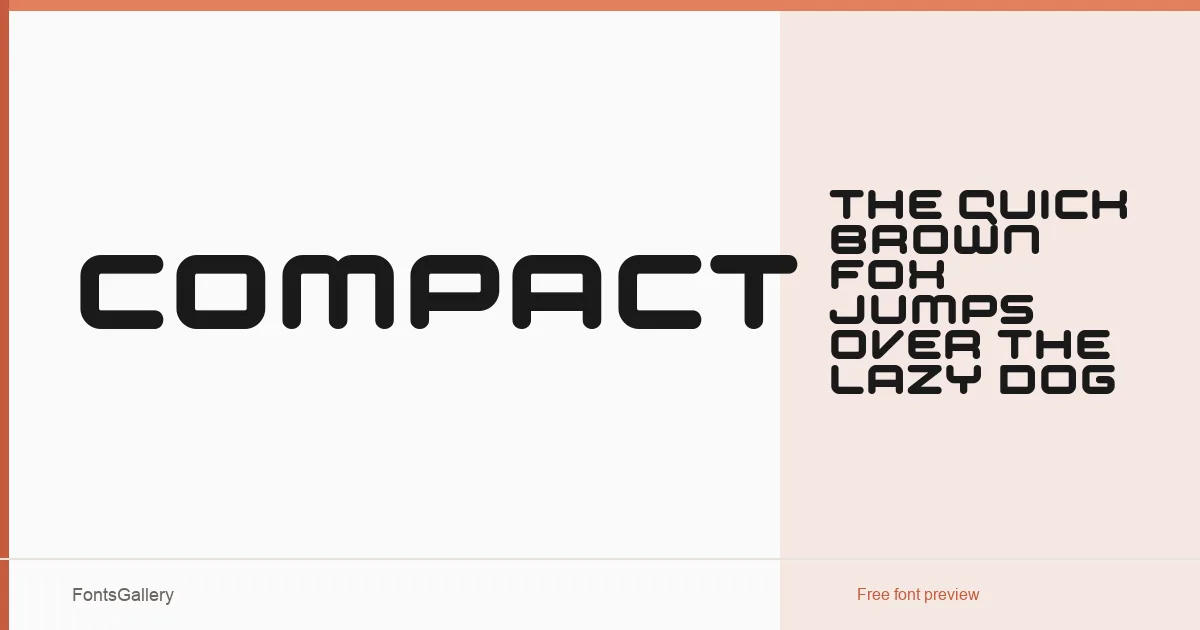
About Compact Font
Compact is a display typeface crafted by Daniel Lyons of LyonsType, designed to make a strong and immediate visual impact. Its bold, modern character makes it a standout choice for projects that demand attention and authority. With a futuristic edge and professional sensibility, Compact brings a dynamic energy to any design it anchors.
True to its Display category, Compact features assertive, bold letterforms that command presence on the page or screen. The typeface balances a futuristic aesthetic with clean, modern structure, giving it a polished and professional appearance. Its tight, purposeful construction ensures visual cohesion and impact at large sizes.
Compact excels in high-visibility applications such as logos, posters, headlines, branding materials, and T-shirt designs where bold expression is key. Its strong presence makes it especially effective for brand identities and print campaigns that need to leave a lasting impression. For a versatile and harmonious pairing, consider combining Compact with Helvetica for clean body text or Aresink for a complementary display accent.